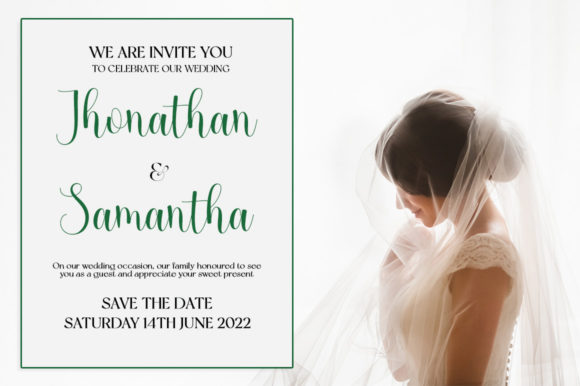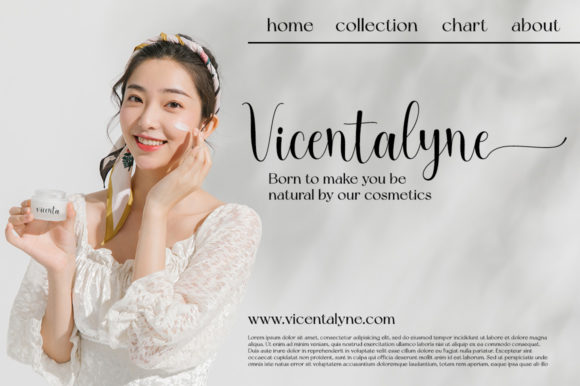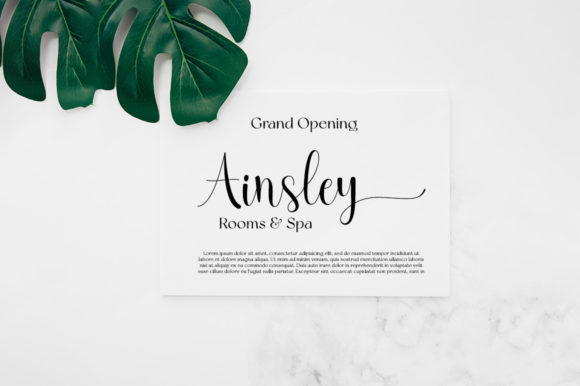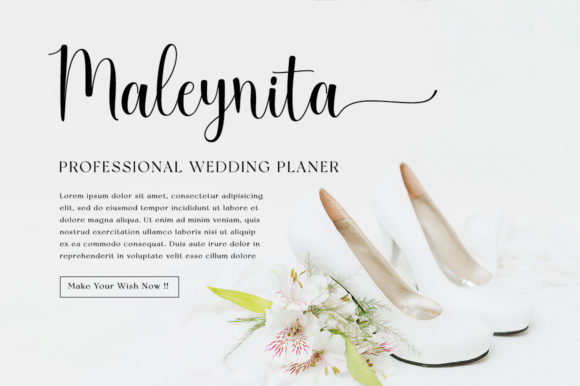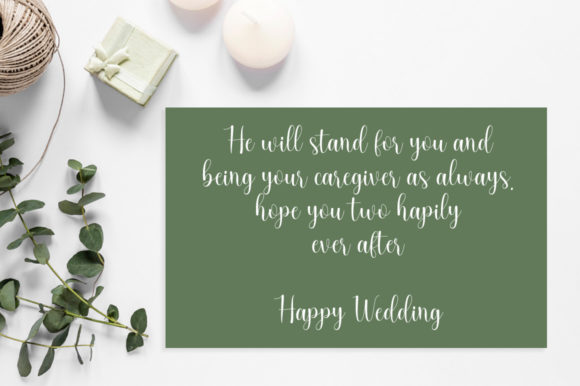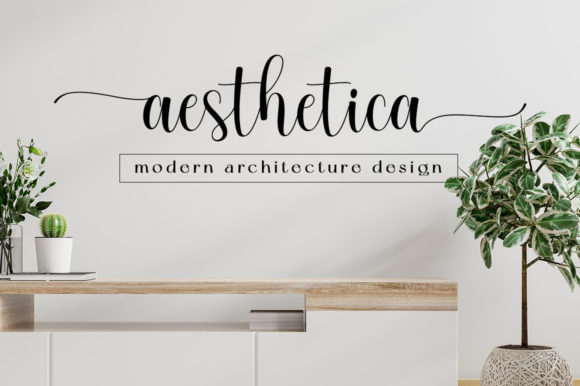
Introduction to Methusela Font
Have you ever been working on a creative project, pouring your heart and soul into it, only to find that the right font is missing? That’s a feeling many designers know all too well. But what if I told you there’s a font that can bring a touch of magic to your design, making it truly unforgettable?
Meet Methusela Font, a beautiful and elegant handwritten font that’s perfect for adding a romantic and whimsical touch to your projects. This gorgeous font is not only a design resource, but also a valuable asset for any designer looking to elevate their work. With its gentle curves and soft lines, Methusela Font is sure to make your designs stand out from the crowd.
And the best part? Methusela Font is PUA encoded, making it easy to access all of its glyphs and swashes. Whether you’re working on a project with a transparent background or need a high-quality font for a free download, Methusela Font is the perfect choice.
Key Features of Methusela Font
- Unique and elegant design, perfect for creative projects and design resources.
- High-quality design with precise details and smooth lines, suitable for a wide range of creative projects.
Honest Review: Methusela Font
I recently came across the Methusela Font, a unique design resource that caught my attention. As a designer, I’m always on the lookout for high-quality fonts to elevate my creative projects.
What works well with the Methusela Font is its versatility. The font has a transparent background, making it easy to combine with other design elements. Additionally, it’s available for free download, which is a huge plus for designers working on a budget. ✨ The font’s sleek and modern design makes it perfect for a variety of creative projects, from digital interfaces to branding materials.
- High-quality design that’s perfect for modern creative projects
- Available for free download, making it an excellent design resource
However, there are some limitations to consider. ⚠️ The font may not be suitable for projects that require a more traditional or classic look. Additionally, some users may find the font’s modern design too trendy or overpowering.
Overall, I’d say the Methusela Font is a solid addition to any designer’s toolkit. Its high-quality design and transparent background make it a great choice for modern creative projects. Just be aware of its limitations and use it thoughtfully in your design work.
Tips for Getting the Most Out of Methusela Font
Use the Methusela Font in conjunction with a transparent background for a professional look. Experiment with different font sizes and styles to add depth and interest to your design. Use the font in conjunction with other design resources, such as images and graphics, to create a visually appealing design.
The Methusela Font is suitable for a wide range of creative projects, including logos, business cards, and brochures. It is also a great resource for designers looking for a high-quality font with a transparent background.